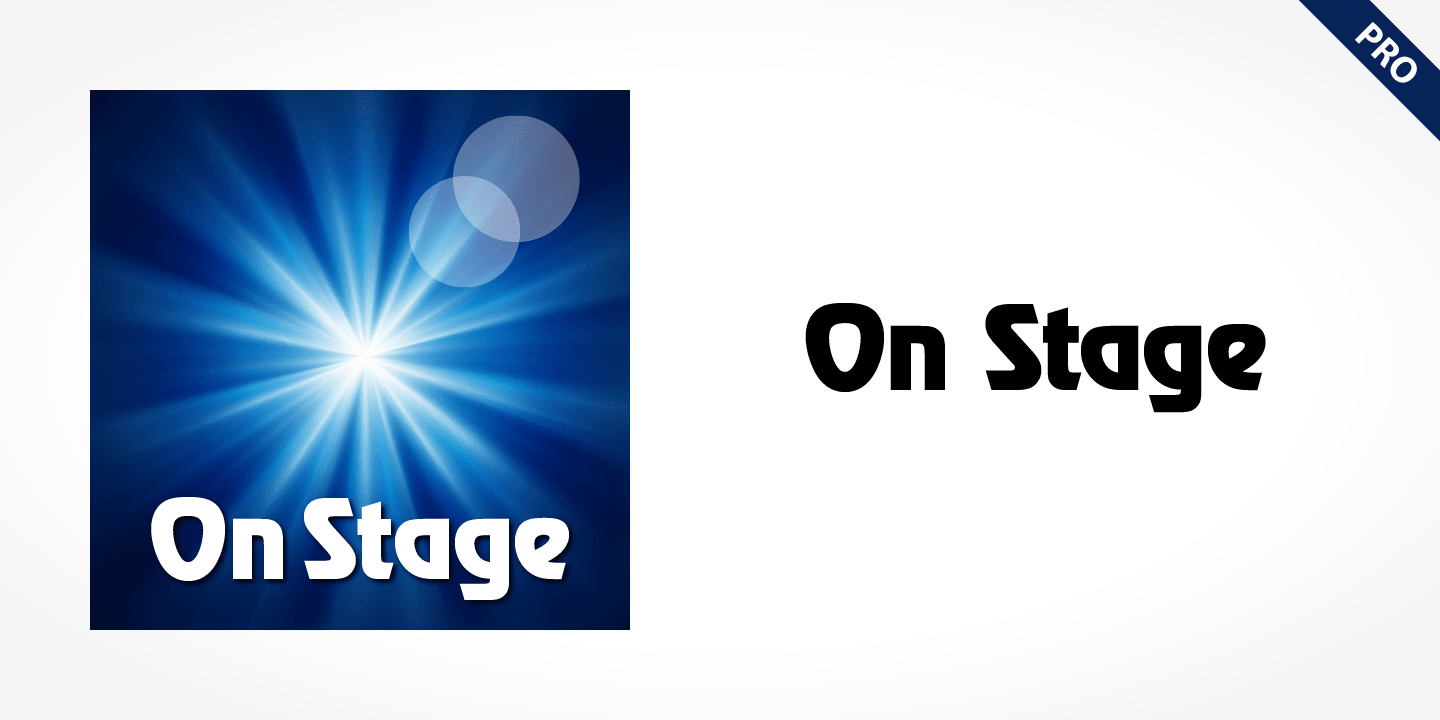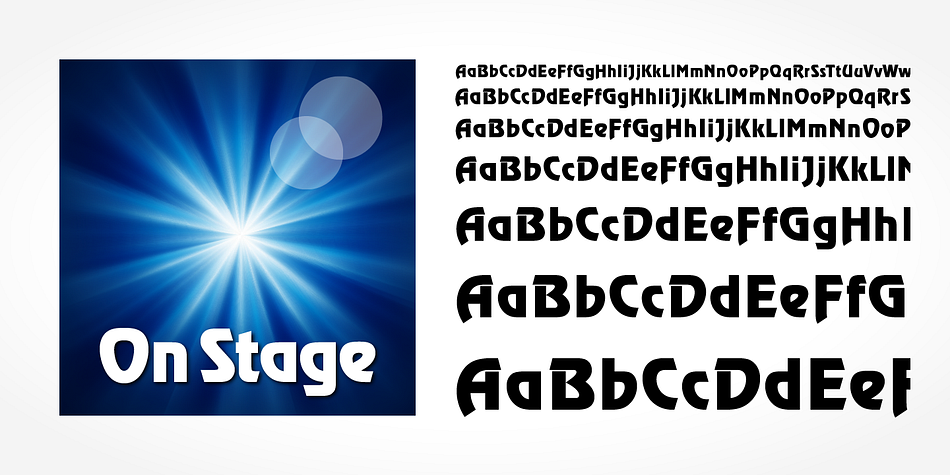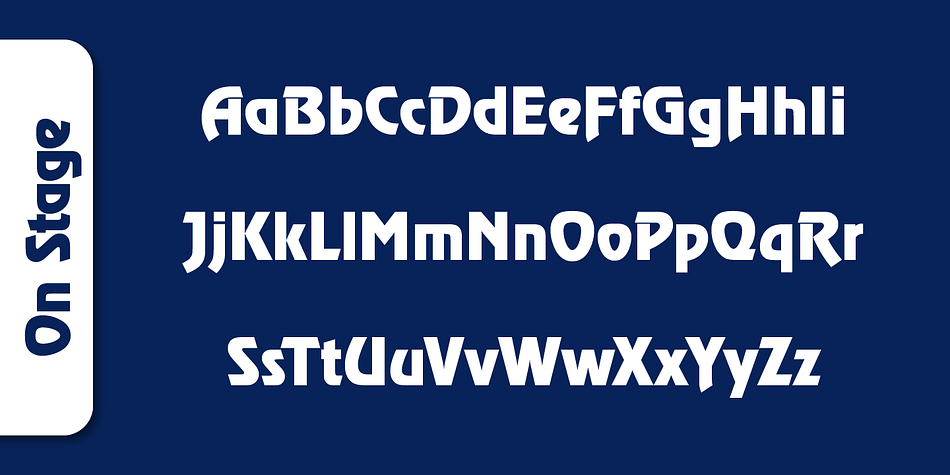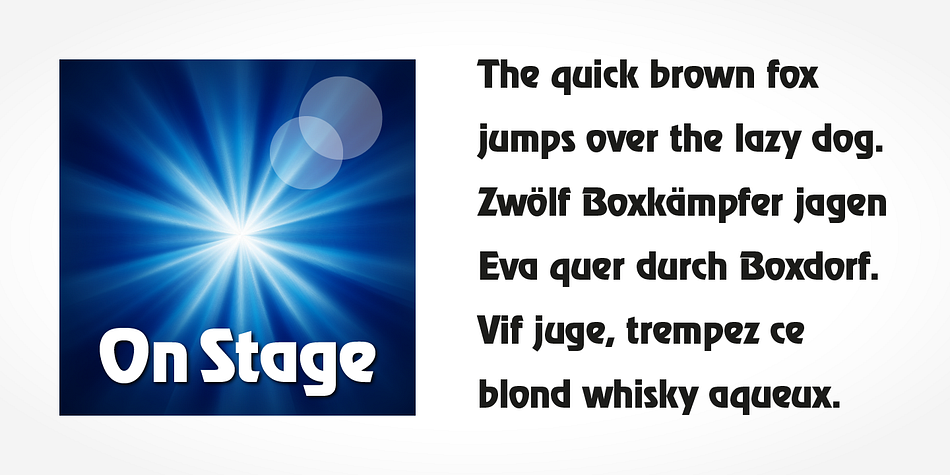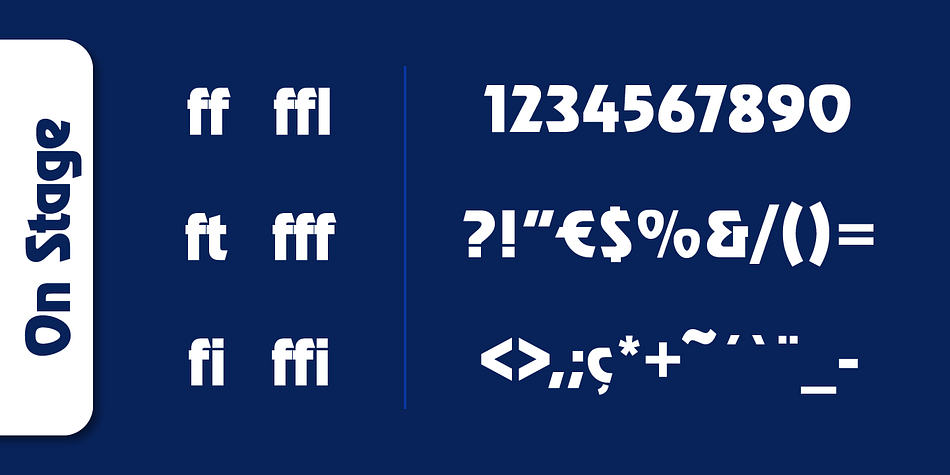
OnStage Pro
OnStage Pro is a display sans font published by SoftMaker.
OnStage Pro is a display typeface published by SoftMaker. The heavy sans serif letterforms of this font are ideal for use in signage, on posters and in advertising display.